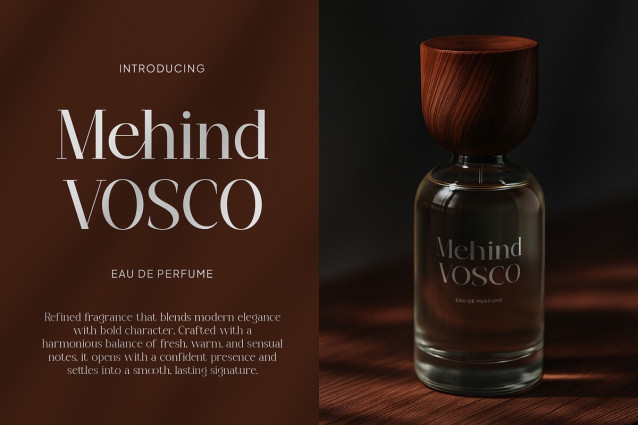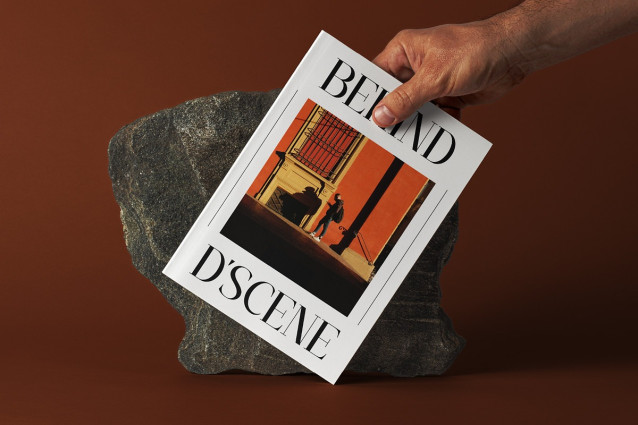
Maglenz Font
Maglenz Font is a modern serif family font designed to bring elegance, clarity, and versatility into one complete type system. With its refined shapes, stylish contrast, and balanced proportions, Maglenz delivers a contemporary serif look that feels premium, clean, and highly adaptable. Featuring multiple styles, this font family allows designers to create consistent and expressive visual hierarchies across various design needs.